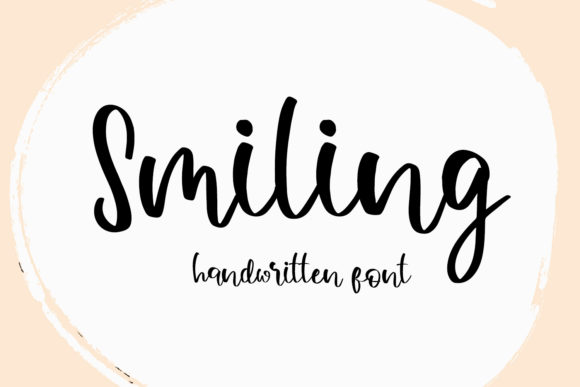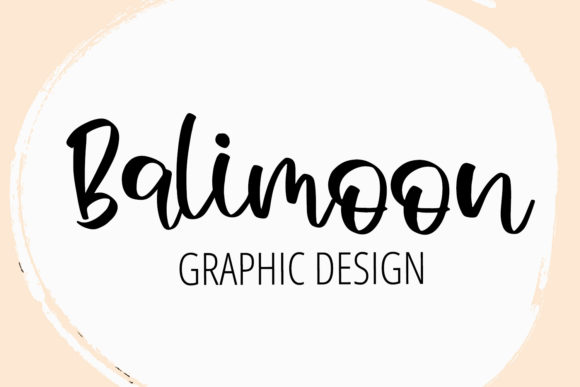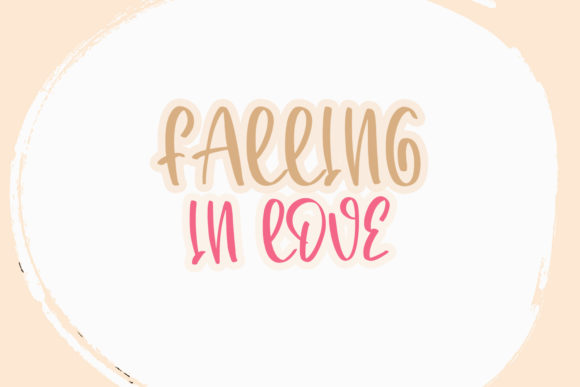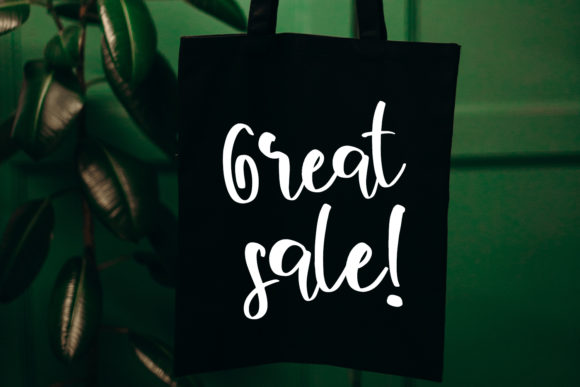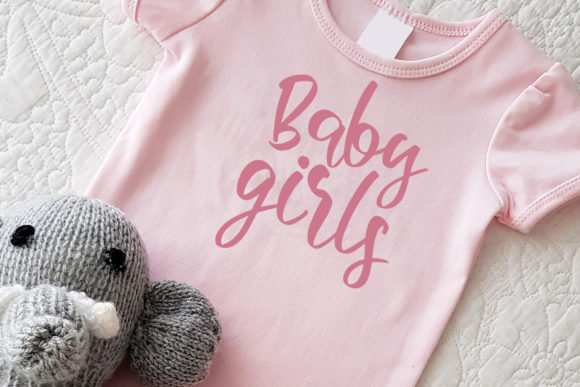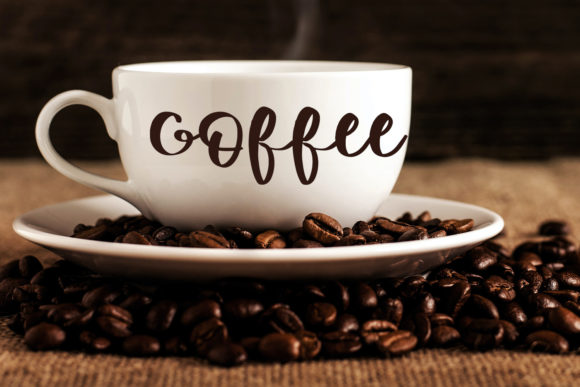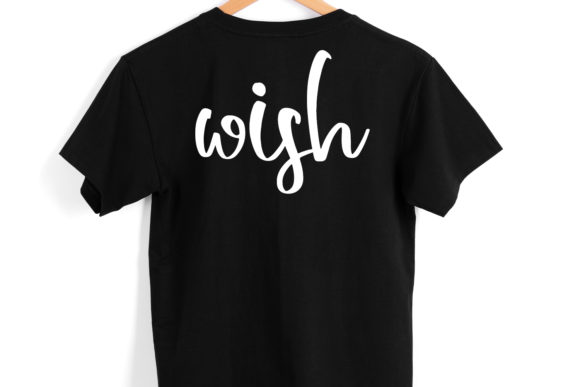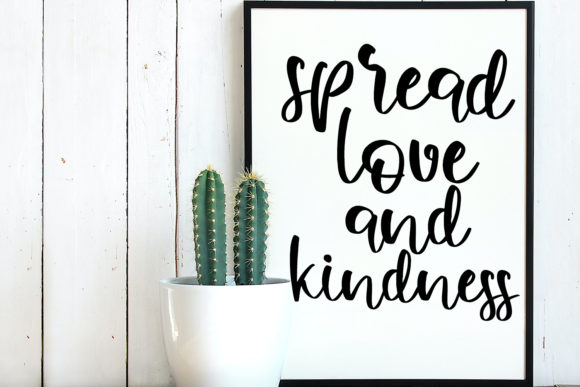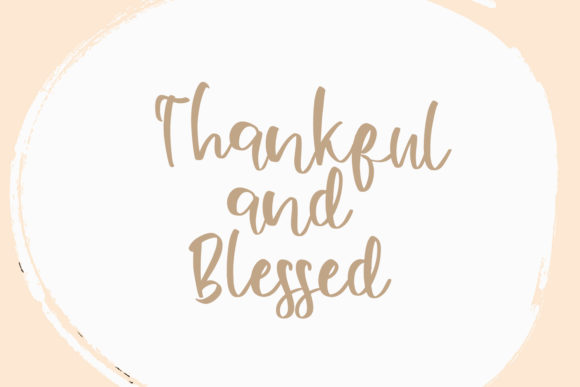
Smiling Font
About Smiling Font
Smiling is a friendly and casual handwritten font. Add it to your most creative ideas and notice how it makes them come alive!